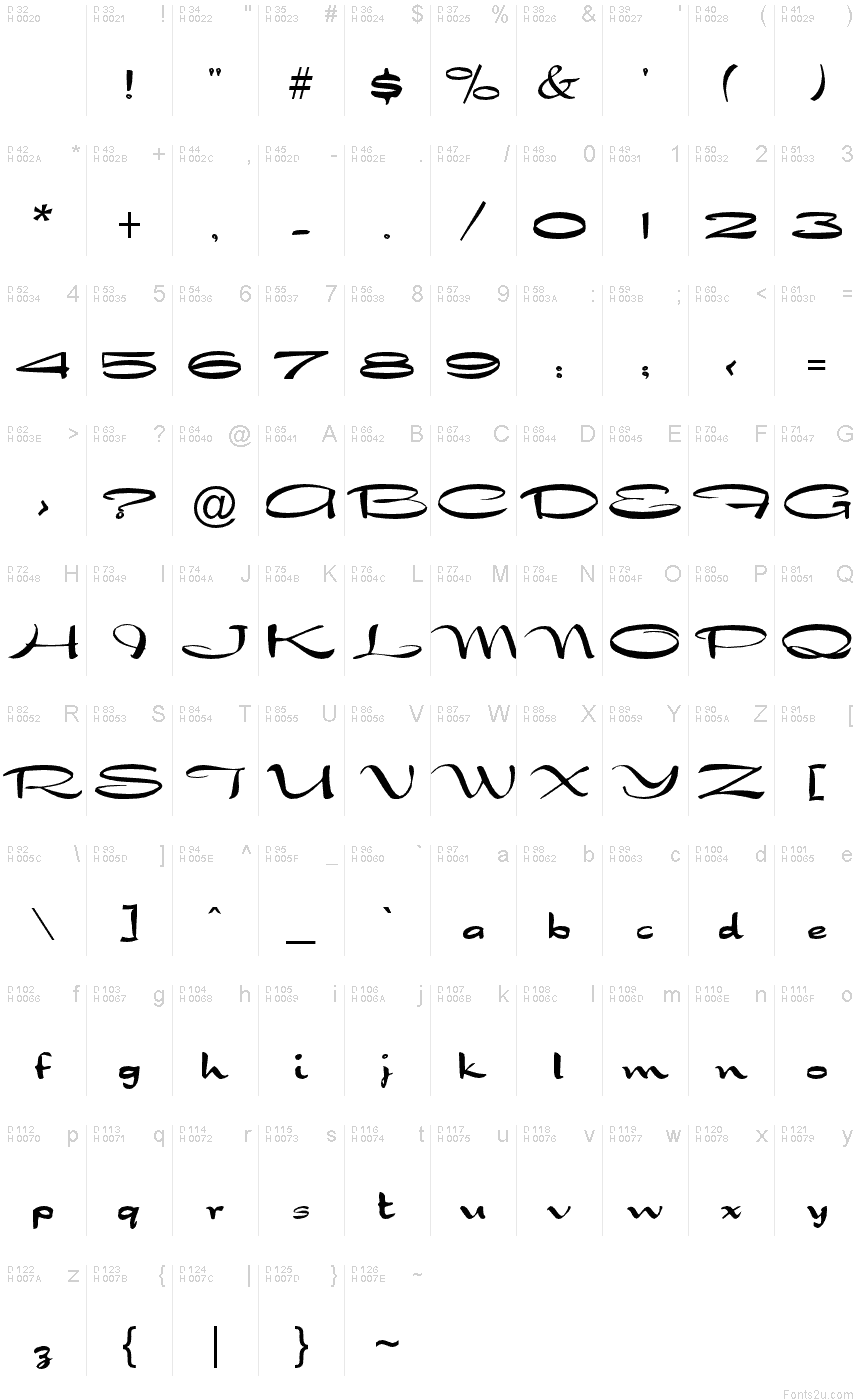
Dragonwyck  Normal
Dragonwyck by Computer Support Corporation is a free Celtic Gothic display font with broad, sweeping letters and sharply changing stroke widths. Its low, stretched forms feel fluid and ceremonial.
Designers working on folklore, historical fantasy, or Celtic-themed entertainment can use it for game titles, event posters, and music packaging. The long curves echo knotwork paths and can become part of illustrated borders, heraldic emblems, or winding decorative patterns.